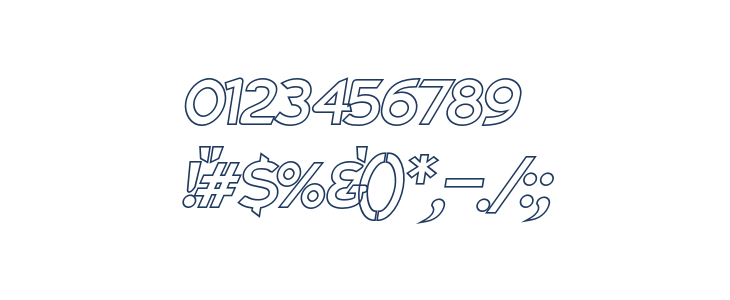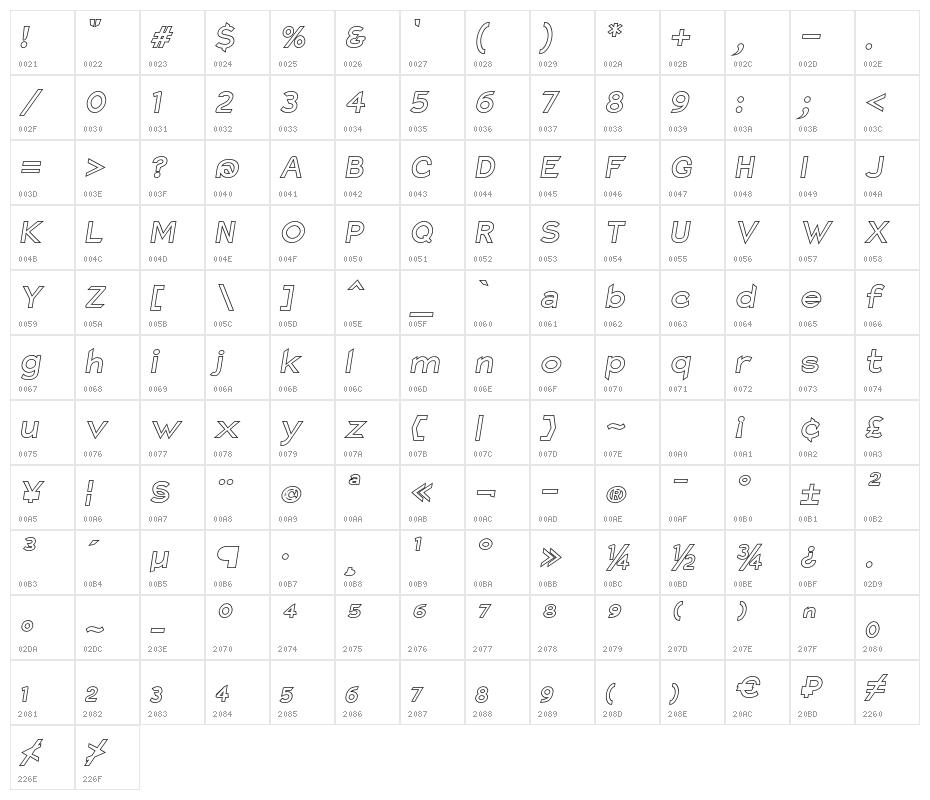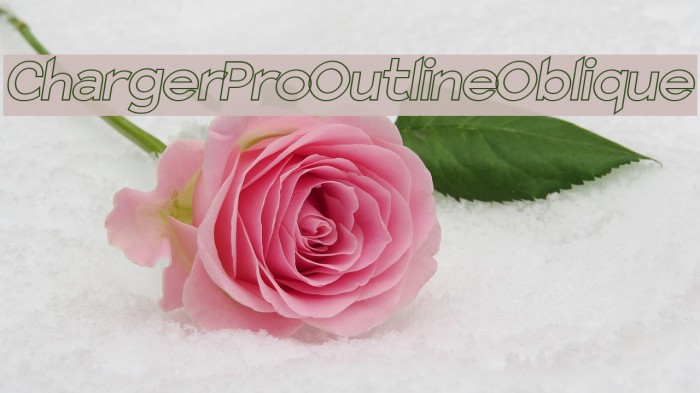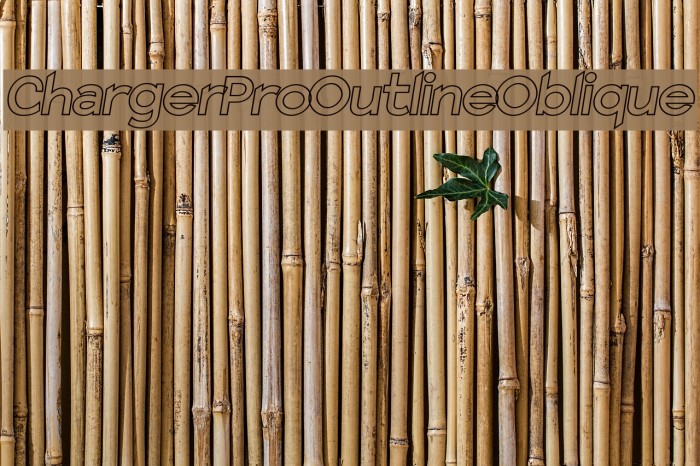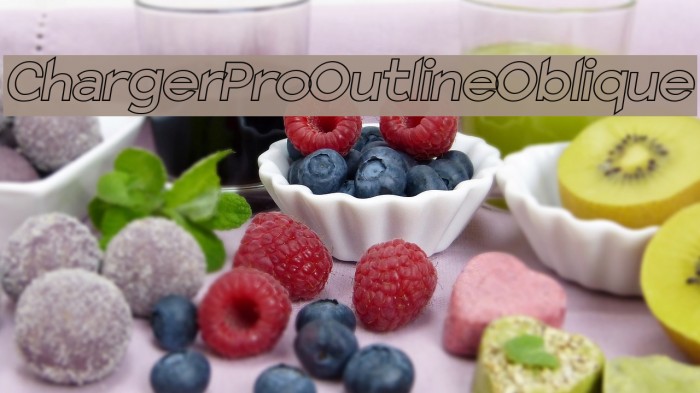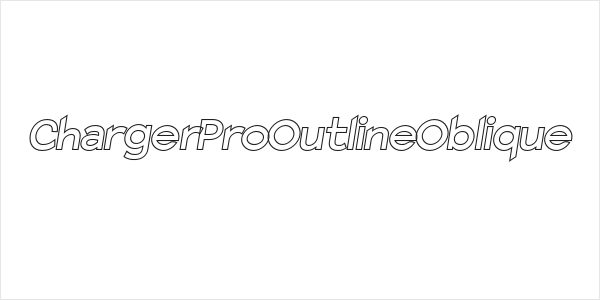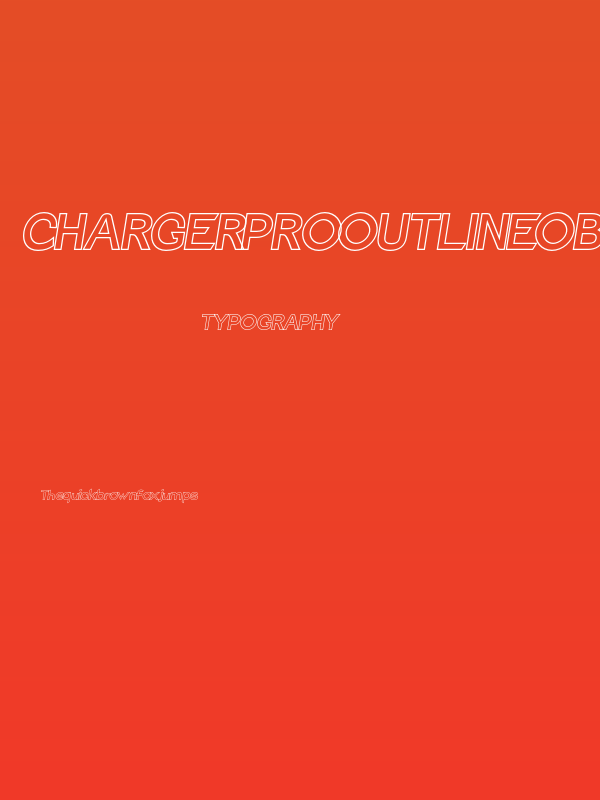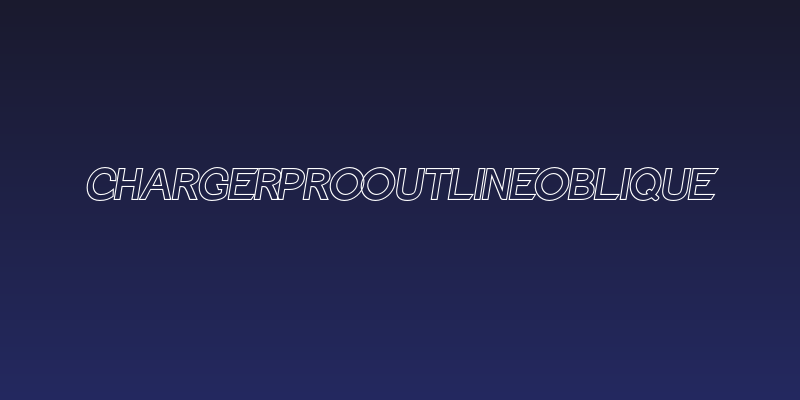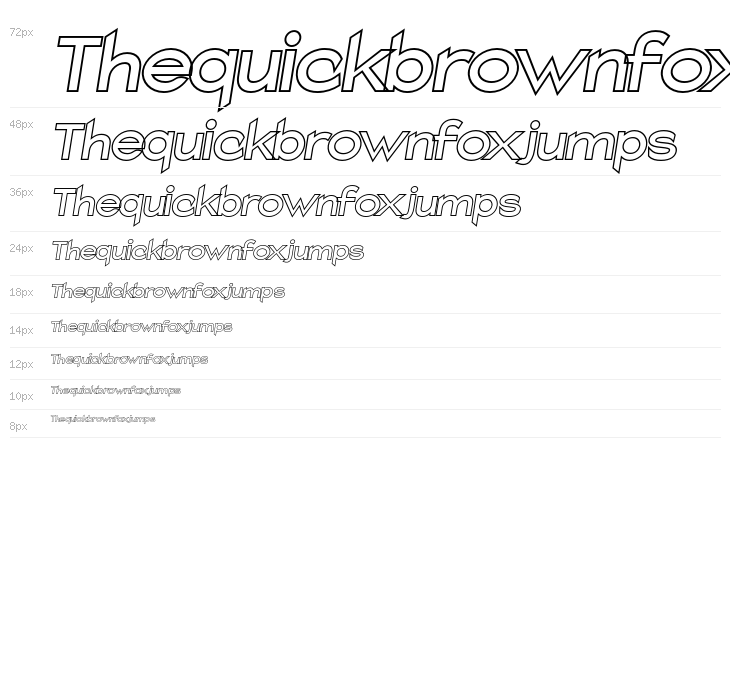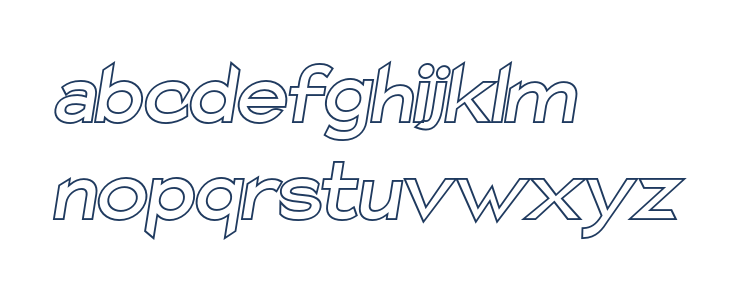
Charger Pro Outline Oblique Font
Charger Pro Outline Oblique Description
This font features a bold, dynamic outline style with an oblique slant, giving it a sense of motion and modernity. The uppercase and lowercase letters are consistent in their geometric construction, with clean lines and sharp angles that create a striking visual impact. The numerals and special characters maintain this cohesive design, ensuring versatility across various applications. The outlined nature of the font allows for creative use of color and layering, making it ideal for eye-catching designs.
| Proposed Projects | Ideal for branding, headlines, posters, and digital media where a modern and impactful look is desired. |